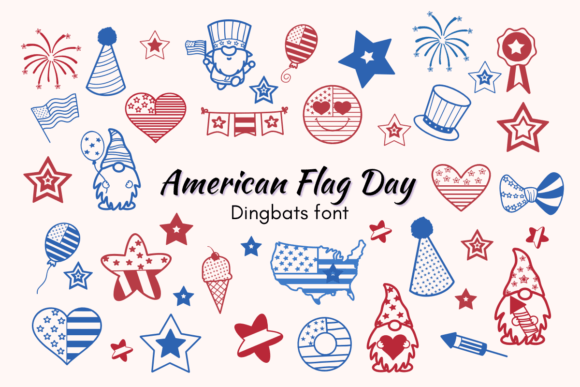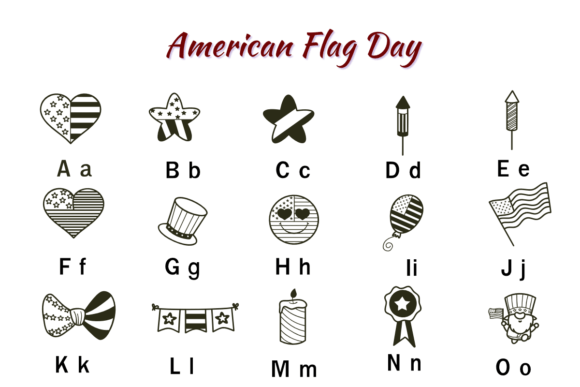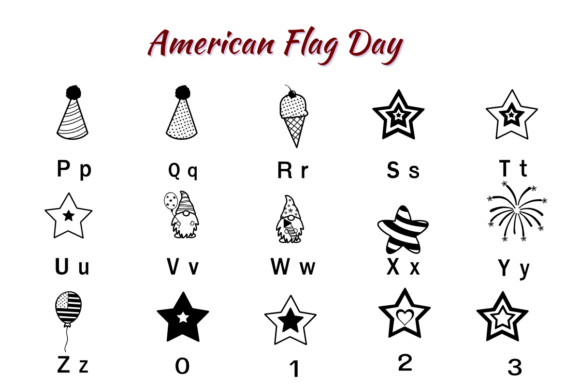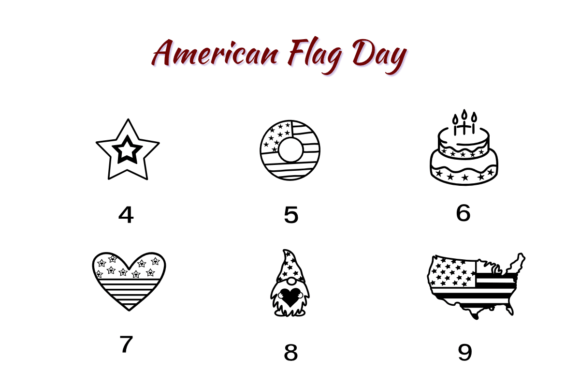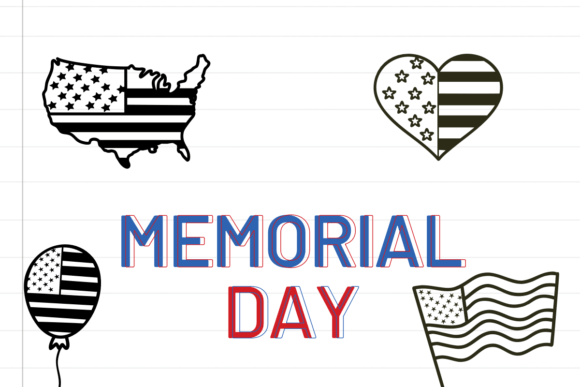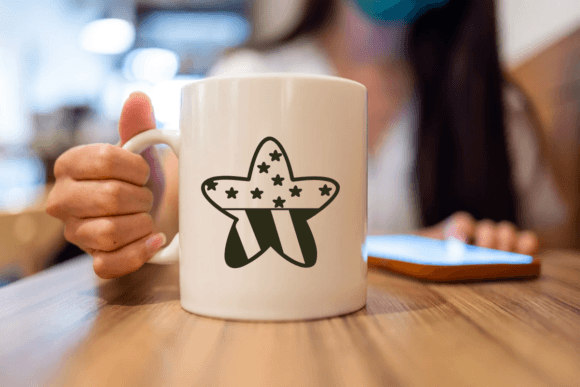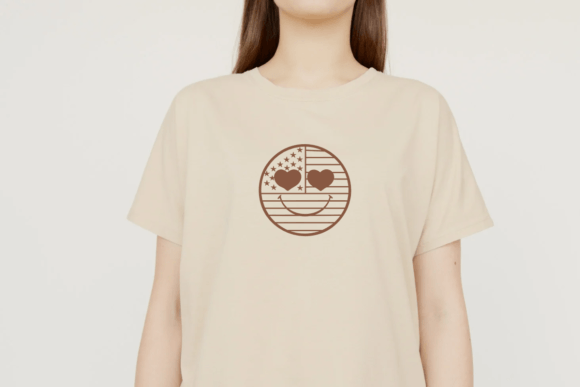
Unfurl Your Creativity: Discover the American Flag Day Font
Have you ever been working on a project and suddenly, the perfect font strikes your imagination? It’s like a spark of creativity that sets off a chain reaction of ideas. For designers, this moment is what drives their passion and fuels their creativity. And for those looking to add a touch of patriotism to their projects, the American Flag Day Font is the perfect catalyst.
With its patriotic sketched style theme, the American Flag Day Font is a dingbats font designed to enhance your creative projects. Whether you’re crafting wedding invitations, creating DIY crafts, or designing decorations, this font is sure to add a unique touch. As a valuable resource for designers, the American Flag Day Font offers endless possibilities for creativity and self-expression.
American Flag Day Font Key Features
- Unique Characteristics: The font features a distinctive, patriotic design with bold red and white stripes and a blue field with white stars, making it perfect for Independence Day celebrations and American-themed designs.
Designer Review: American Flag Day Font
Overall, I was quite excited to dive into the “American Flag Day Font” and see what it had to offer. The initial impression is that the font is well-designed and catches the eye, which is perfect for any patriotic project. ✨
Here are some of the things that I think work well:
- Custom-designed letters and symbols that resemble the American flag
- Great for adding a touch of patriotism to any design project
- Works well in both digital and print formats
However, I did encounter a few limitations that might affect its usability:
- Limited character set, which might make it difficult to use for longer texts
- No bold or italic versions available
- Not ideal for projects where you need a lot of font sizes and styles
- Use the font to create a banner with inspirational quotes or patriotic phrases.
- Combine with red, white, and blue stripes to create a cohesive look.
- Tip: Use a mix of uppercase and lowercase letters to add visual interest and create a sense of movement.
- Use the font to create a bold headline or title for your card.
- Combine with simple, elegant graphics, such as stars or stripes, to add a touch of whimsy.
- Tip: Experiment with different font sizes and colors to create a sense of hierarchy and balance.
- Use the font to create a bold headline or title for your invitation.
- Combine with patriotic graphics, such as fireworks or flags, to create a cohesive look.
- Tip: Use a bright, bold color scheme to match the font’s energetic style.
Overall, I think the “American Flag Day Font” is a great addition to any designer’s toolkit. While it has some limitations, it’s perfect for adding a touch of patriotism to a design project. If you’re looking for a unique and eye-catching font, this might be the perfect choice for you. Just be aware of its limitations and plan accordingly.
Use the American Flag Day Font to add a patriotic touch to your designs.
Q: What font sizes work best with American Flag Day Font?
American Flag Day Font is designed to be used at larger font sizes, typically above 24 points. At smaller font sizes, the font may become difficult to read. For optimal results, use the font at sizes ranging from 24 to 72 points or more, depending on your design needs.